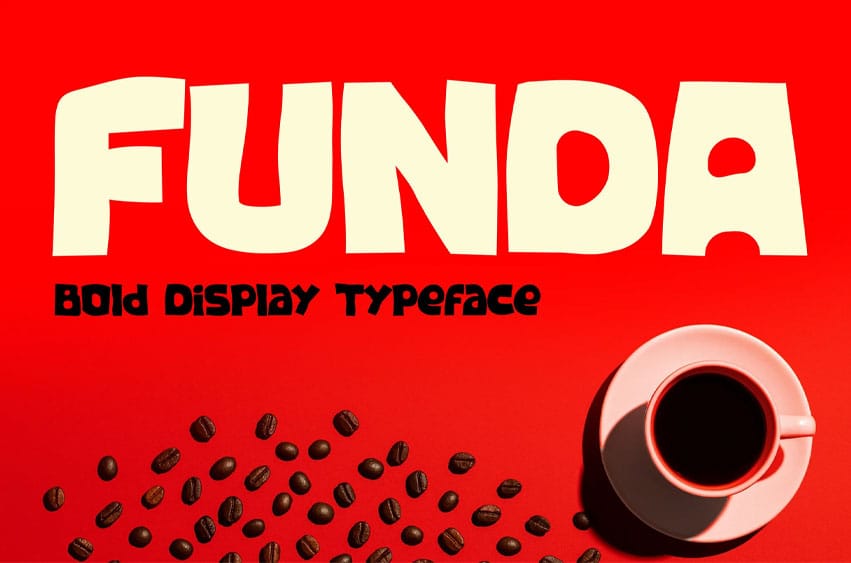
Funda Font is a bold display typeface crafted for designers seeking a long-tail combination of high-impact headline clarity and rounded geometric shapes. Its expressive, playful curves give every letter a lively energy, while its thick, low-contrast strokes create an eye-catching, confident vibe perfect for Instagram visuals, café branding, and modern advertising. The font’s tight proportions and soft terminals deliver a friendly yet assertive feel, making it ideal for graphics that need to stand out without feeling aggressive.
With a visual identity built on weighty curves and a contemporary display structure, FUNDA thrives in real-world design environments where clarity and personality must work together—such as posters, café menus, product packaging, storefront banners, and social media promos. Its bold silhouette ensures messages remain readable from any distance, appealing strongly to designers who value both style and function.
Designed for branding professionals and creators who want expressive titles that connect instantly with their audience, FUNDA brings strong semantic alignment to projects like café promotions, editorial layouts, digital marketing campaigns, and lifestyle product launches. Its playful geometry delivers an energetic mood that elevates any visual, helping logos feel fresher, posters appear livelier, and Instagram posts achieve stronger engagement. FUNDA inspires a warm, creative tone—ideal for businesses aiming to project friendliness, fun, and modern flair.
Key Features : Bold Display Impact
- Thick, rounded structure that boosts readability
- Soft, playful terminals that show personality
- Perfect for attention-driven headlines
Versatile for Branding & Marketing
- Ideal for cafés, food brands, youth-oriented ads
- Commands visual hierarchy in posters and banners
- Engaging look for product packaging and digital flyers
Optimized for Today’s Designers
- Clean proportions ensure visual consistency
- Easy to pair with minimalist layouts
- Strong shapes that reinforce brand confidence